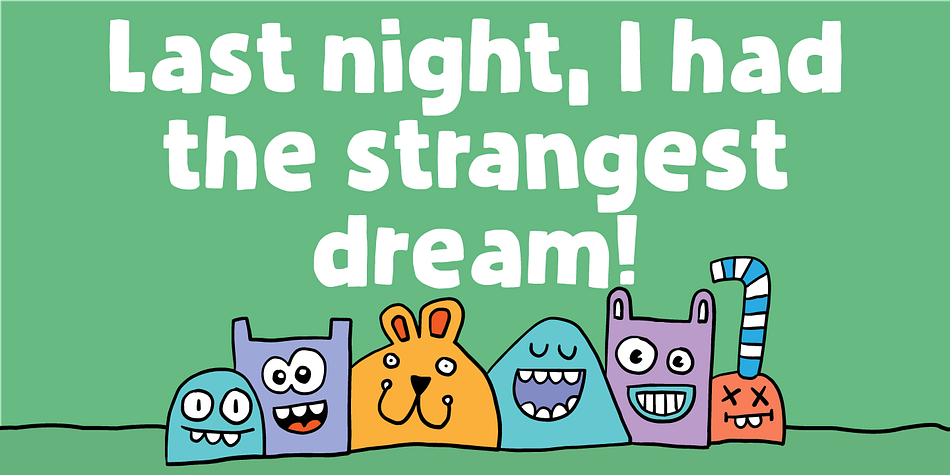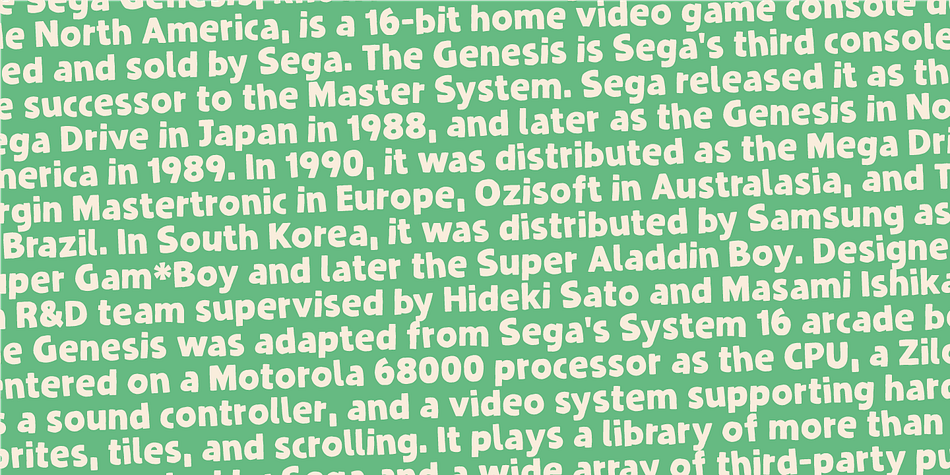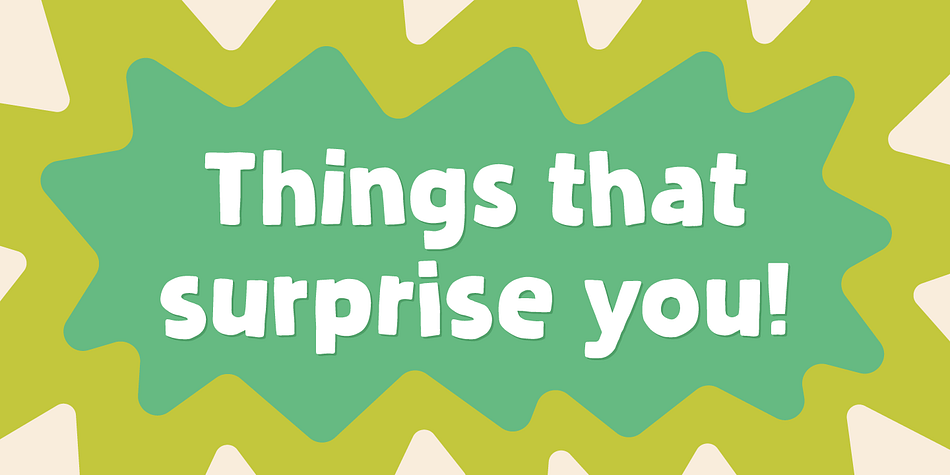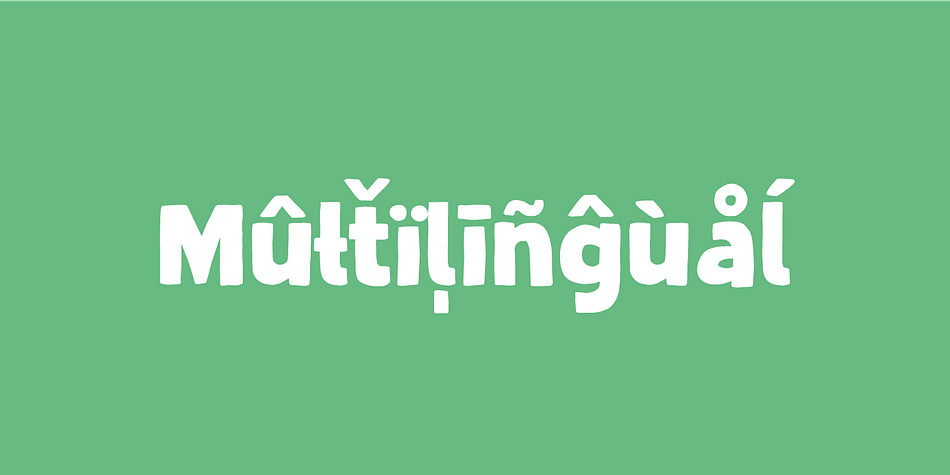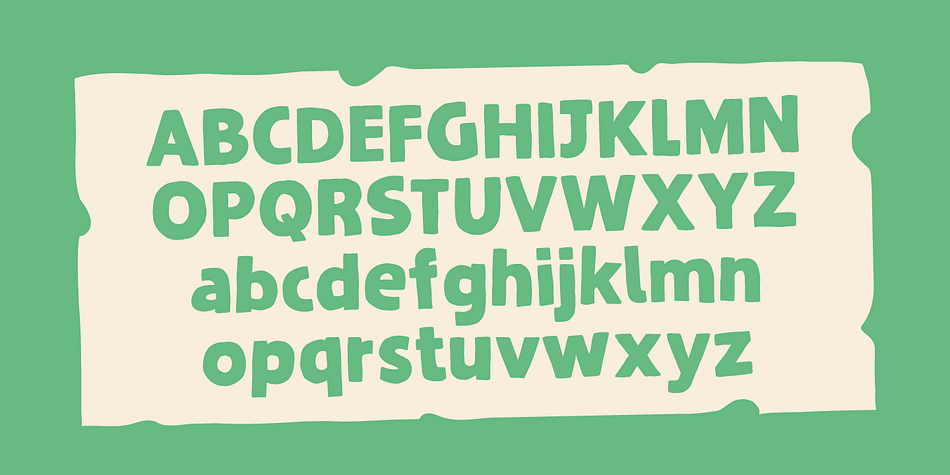
Designed by Jakob Fischer, Disco Jaw is a comic, hand display and kids font published by Pizzadude.dk.
The beat is on, the piano plays the funky tunes and the rhythm guitars do their best to get the party started! The party starts with your design - use the Disco Jaw font if you are working with a theme that involves comic, kids, commercial, arts and crafts, posters ... anything that needs a fresh kick!
Included are jumpy alternative letters, which makes your text look alive and kicking - and or course, there is multilingual support!